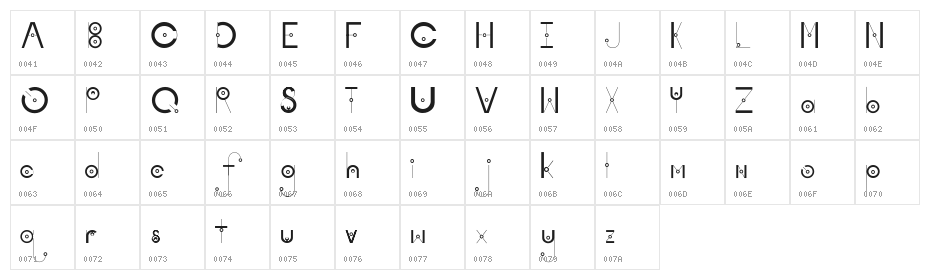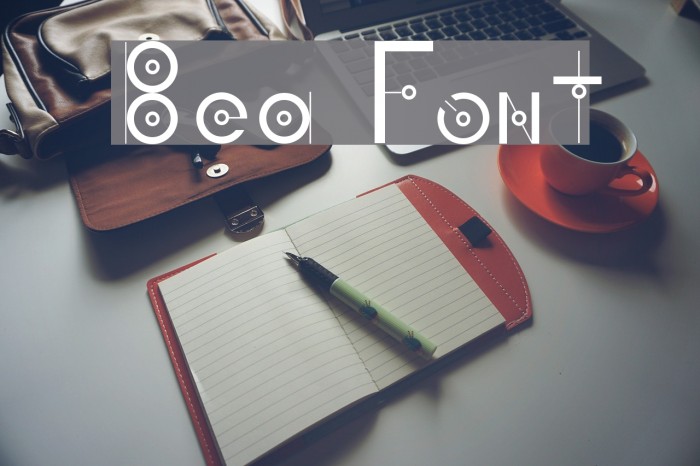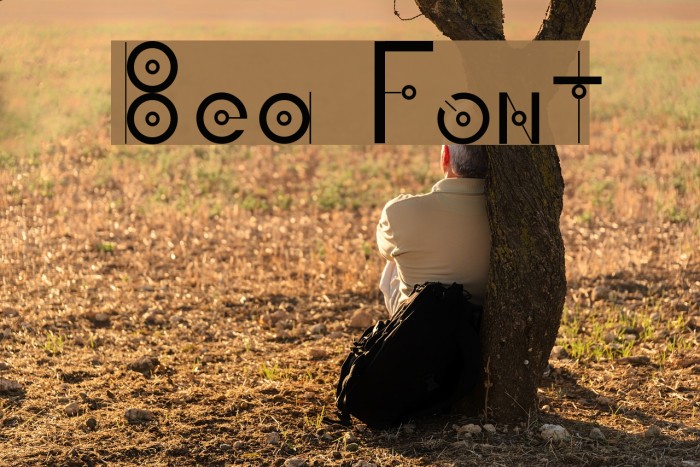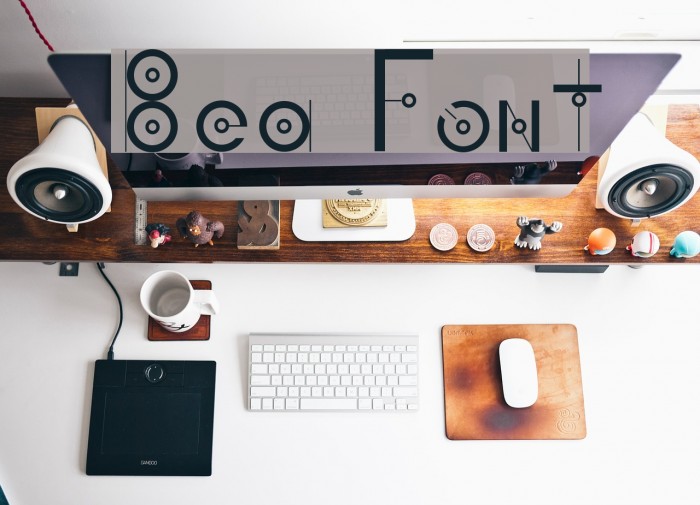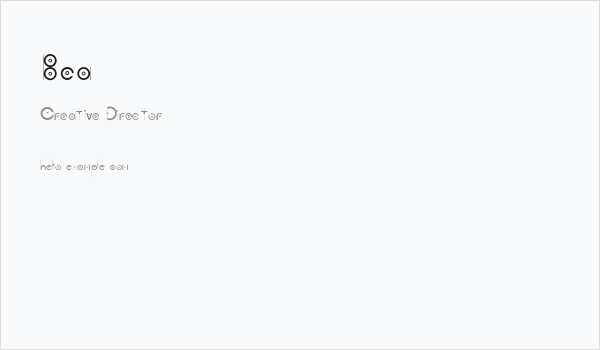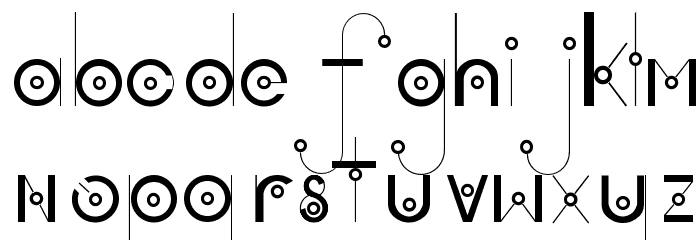
Bea Font
Bea Description
This font features a highly decorative and futuristic design, characterized by geometric shapes and unique embellishments. Each letter incorporates circular elements and lines that create a sense of connectivity and flow. The uppercase and lowercase letters maintain a consistent style, with some characters having extended lines or dots that add to the visual interest. The numbers and special characters follow the same design principles, ensuring a cohesive look across all glyphs. This font is ideal for projects that require a modern and avant-garde aesthetic.
| Overall Style | Futuristic, Decorative |
| Use Case | Logos, Posters, Digital Interfaces |
| Proposed Projects | Ideal for sci-fi themed designs, modern art posters, innovative branding, and digital interfaces. |